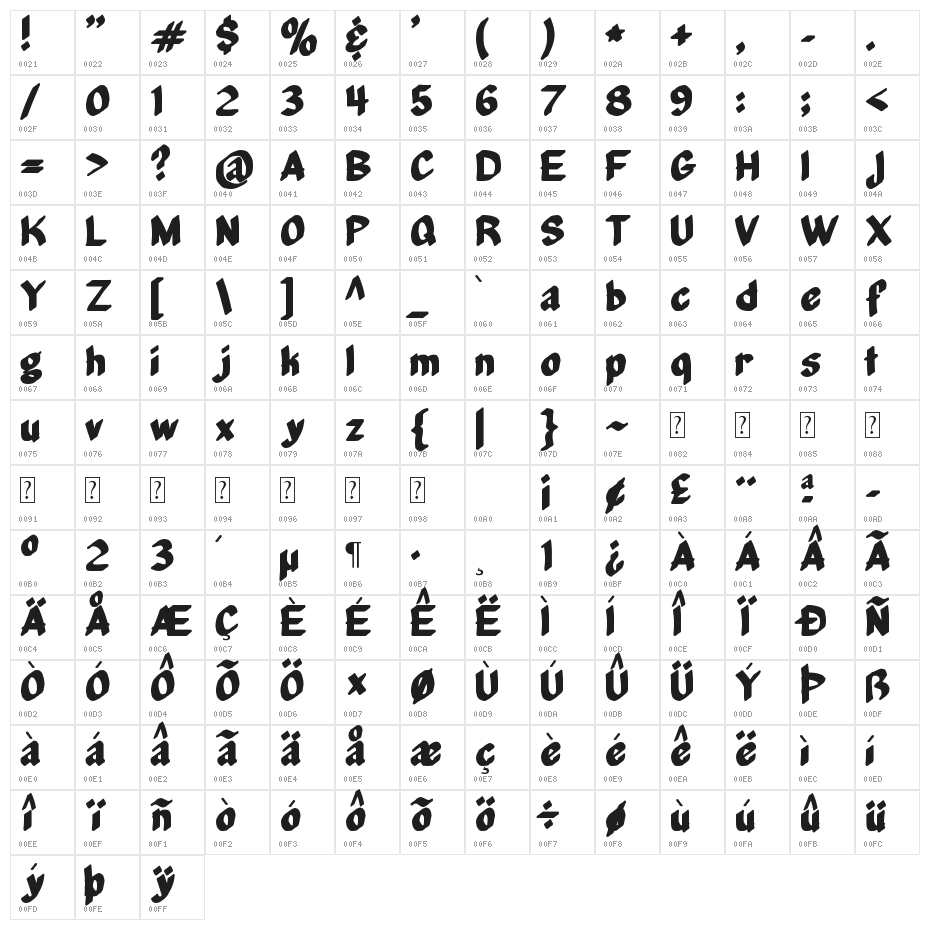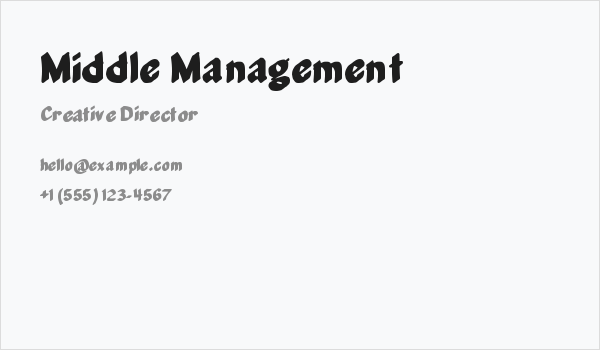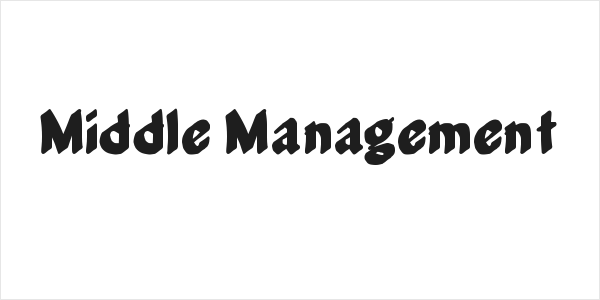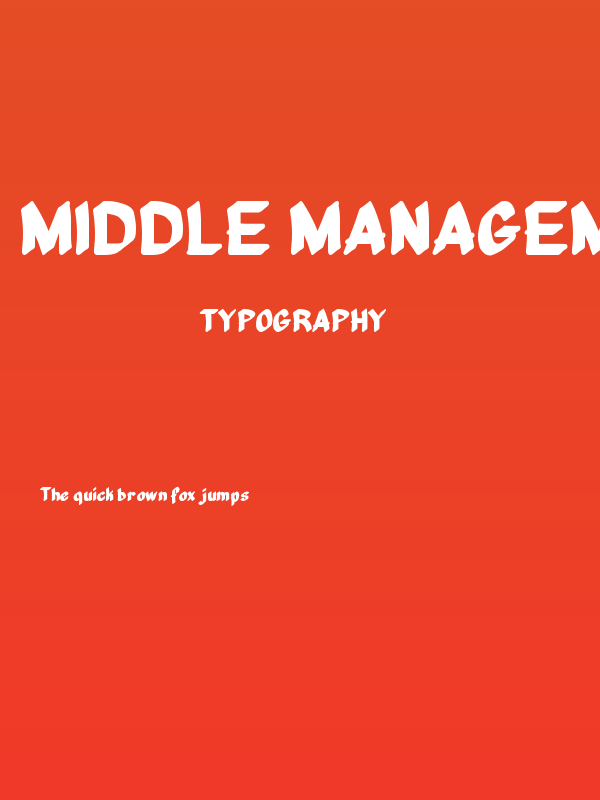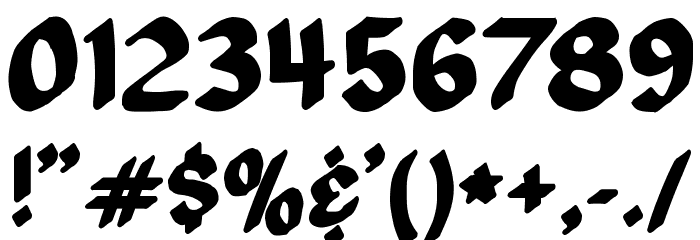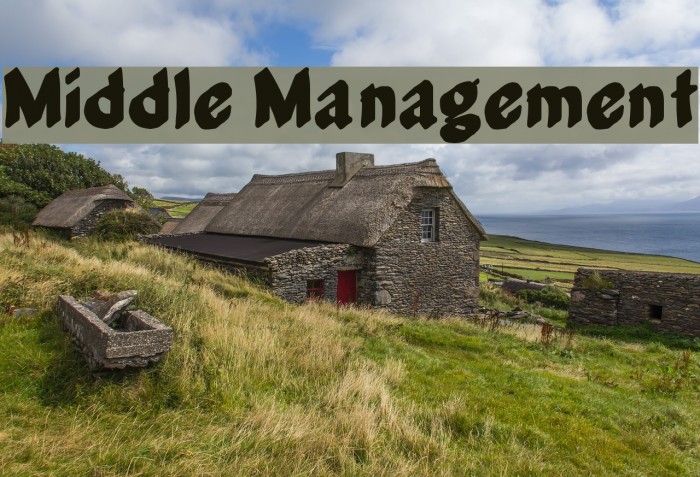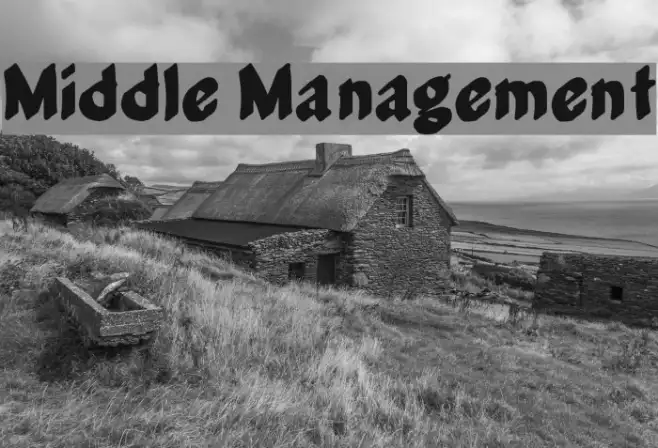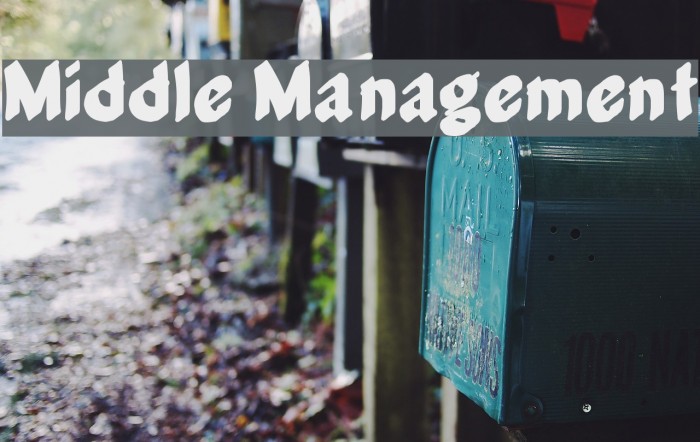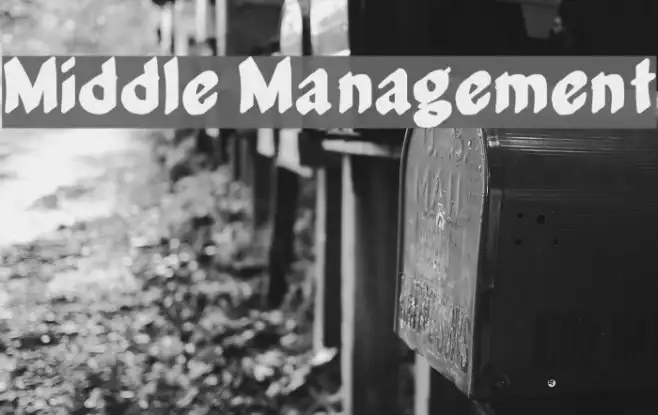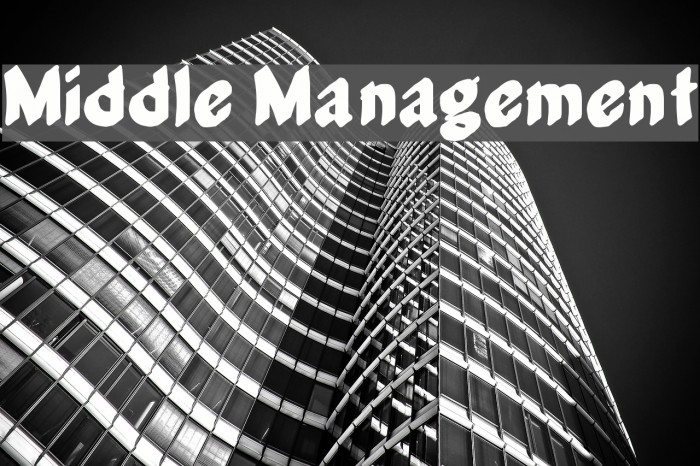
Middle Management Font
Middle Management Description
This font features a bold and dynamic style with a hand-drawn appearance, characterized by its thick strokes and slightly irregular shapes. The uppercase and lowercase letters exhibit a playful yet assertive personality, making it stand out in any design. The numbers and special characters maintain the same boldness, ensuring consistency across all elements. Its unique style is reminiscent of graffiti or street art, adding an urban edge to any project. The font's overall look is both modern and artistic, suitable for creative and informal applications.
| Overall Style | Modern, Artistic |
| Proposed Projects | Ideal for posters, album covers, street art designs, and creative branding projects. |